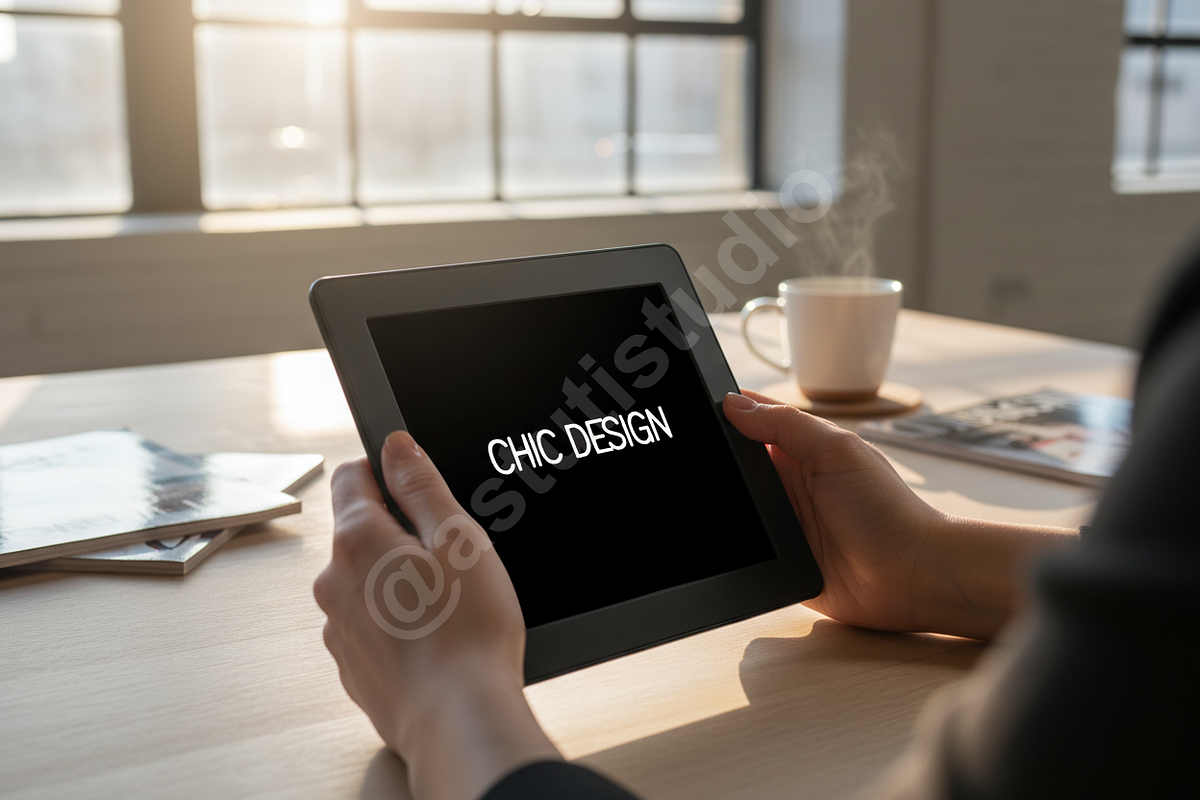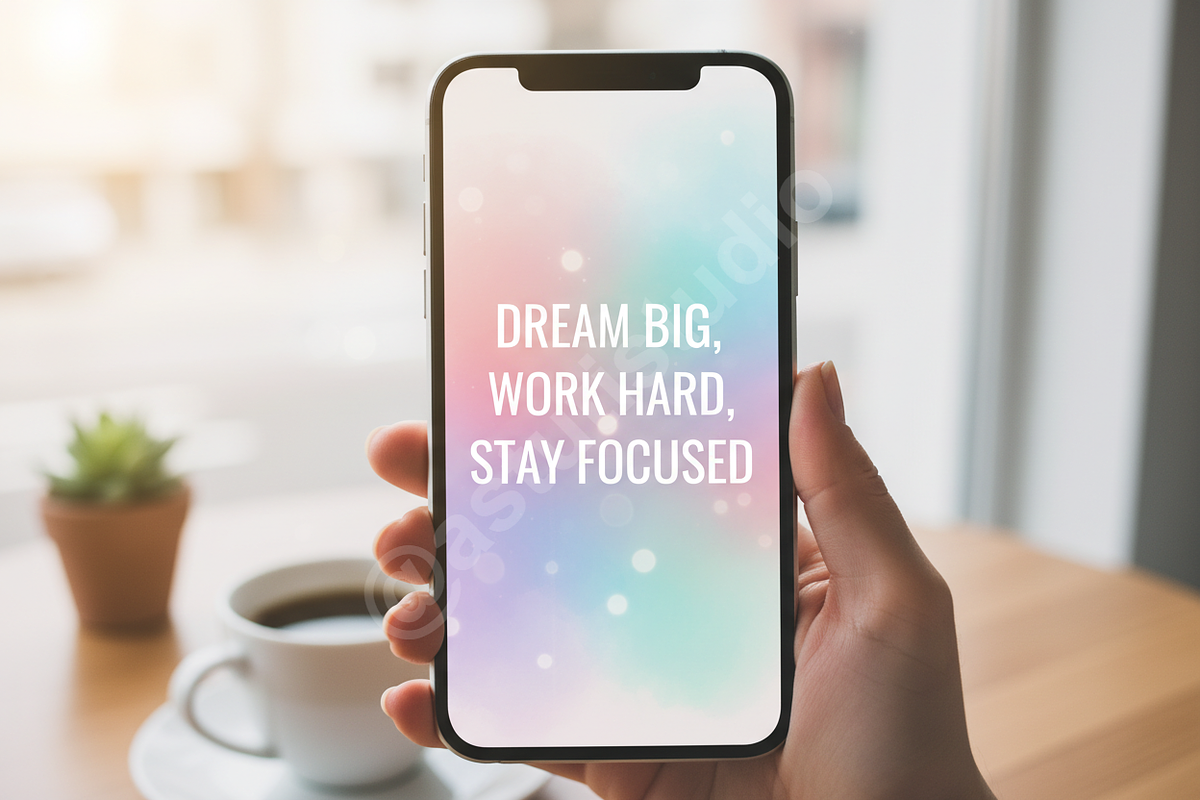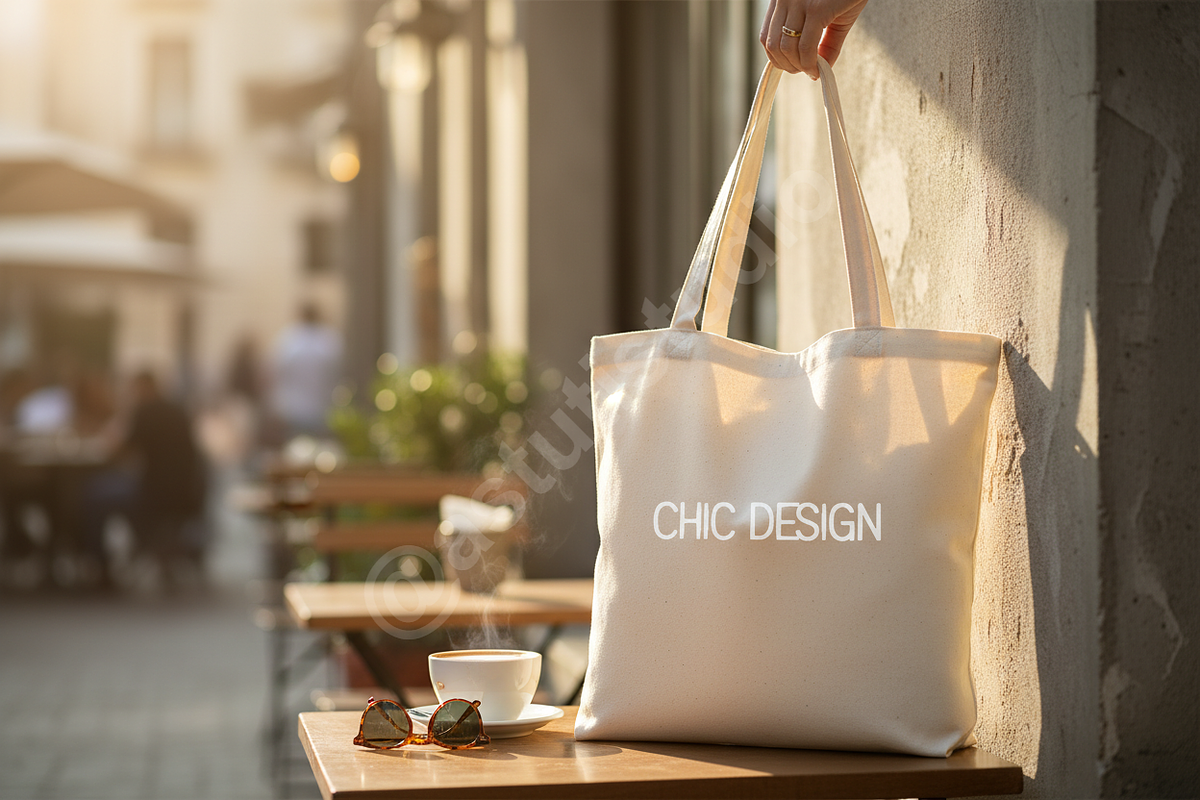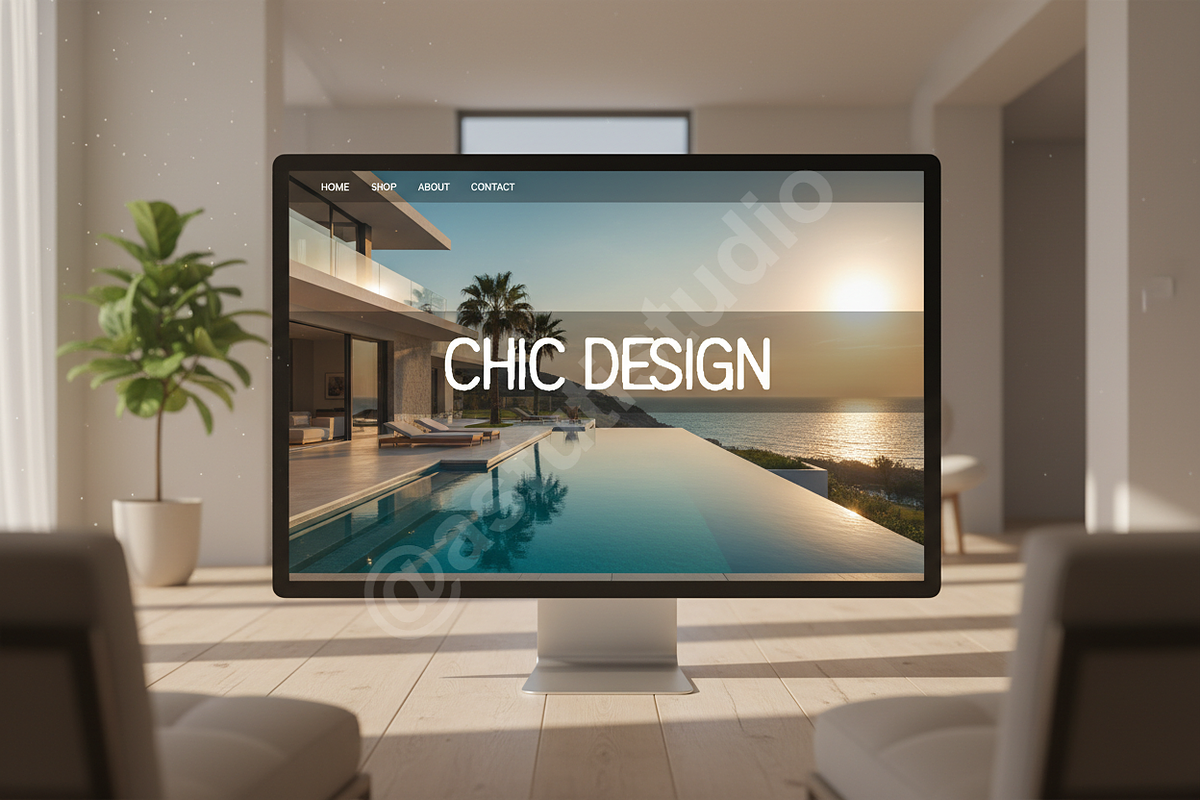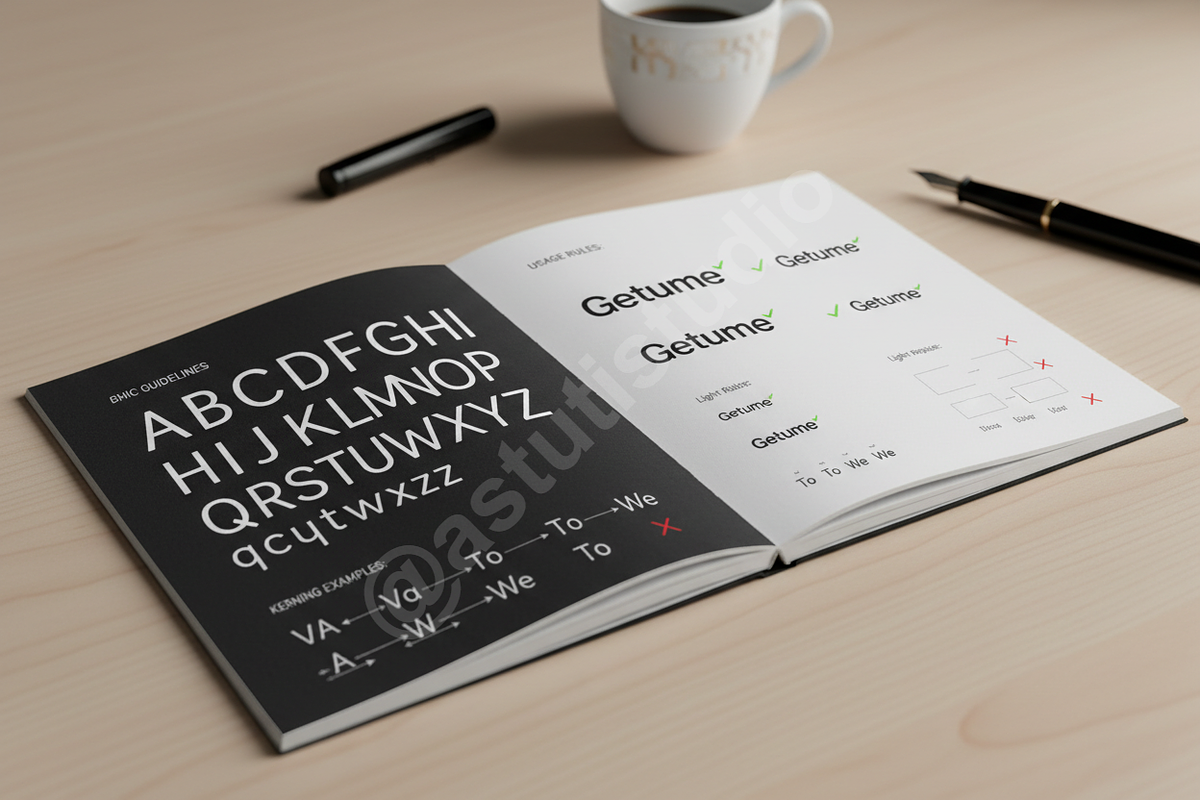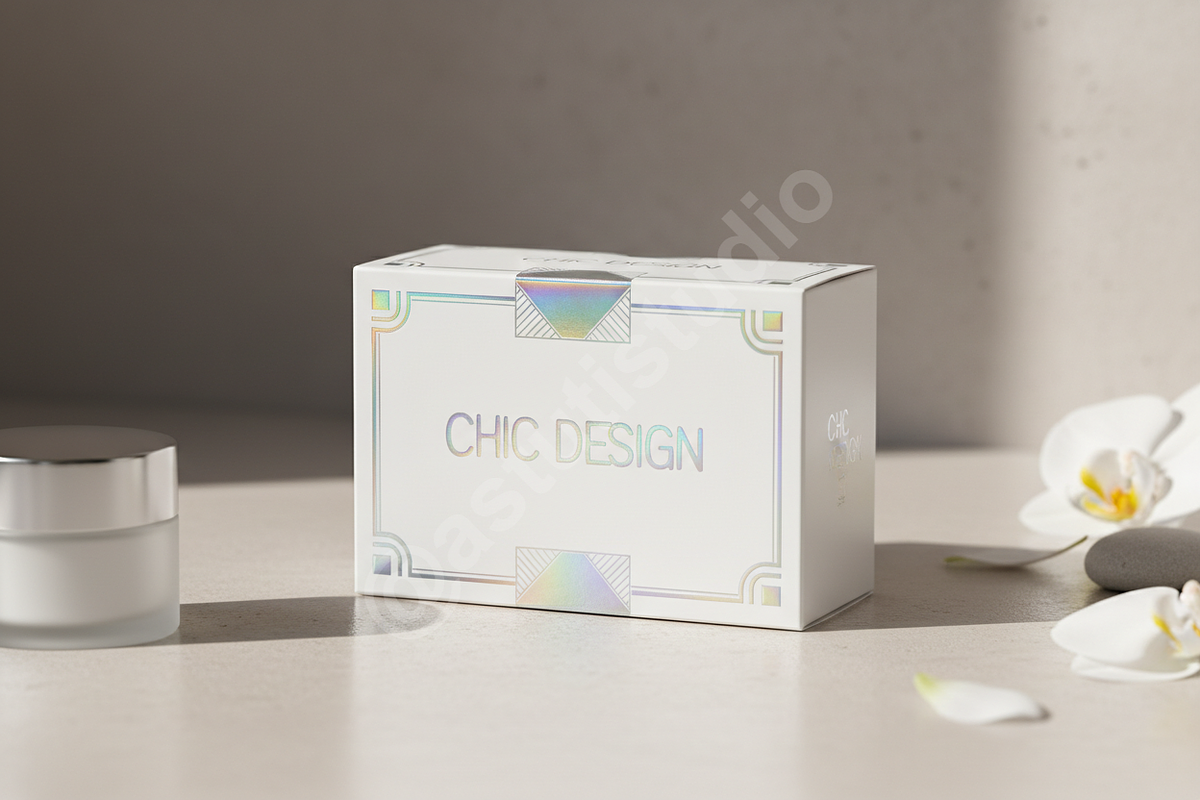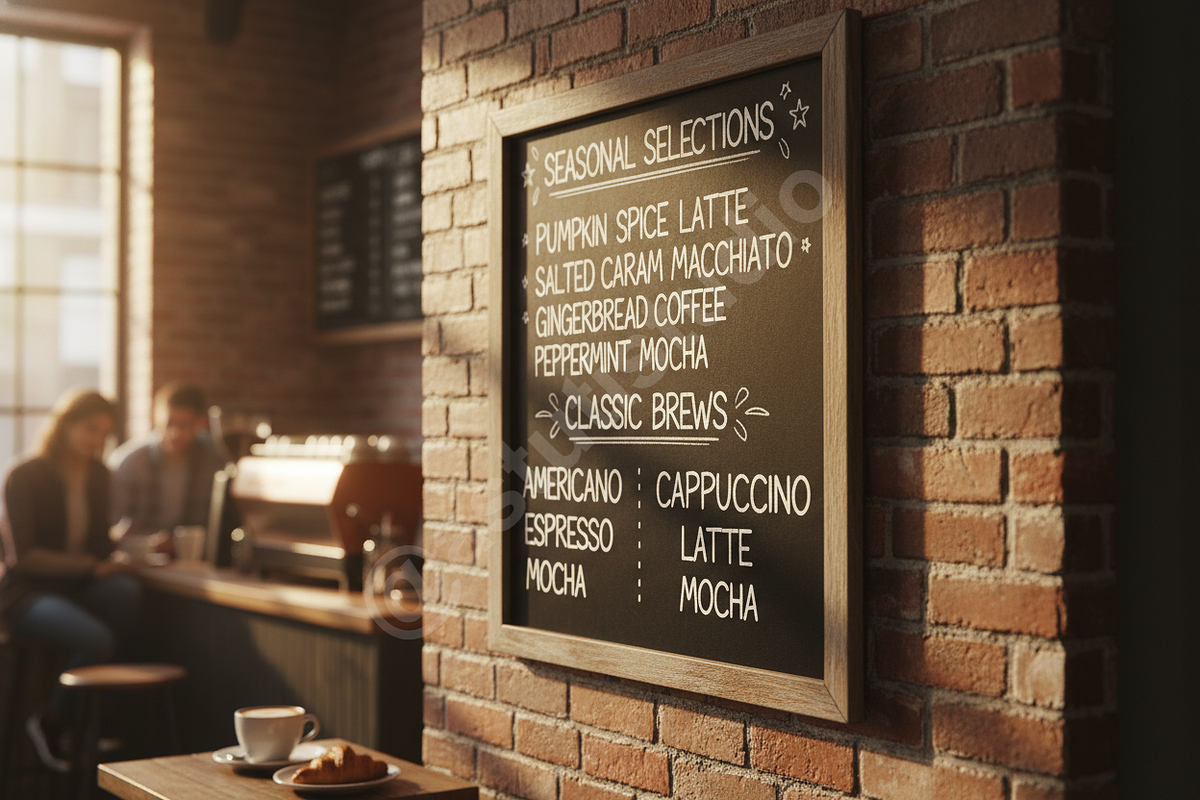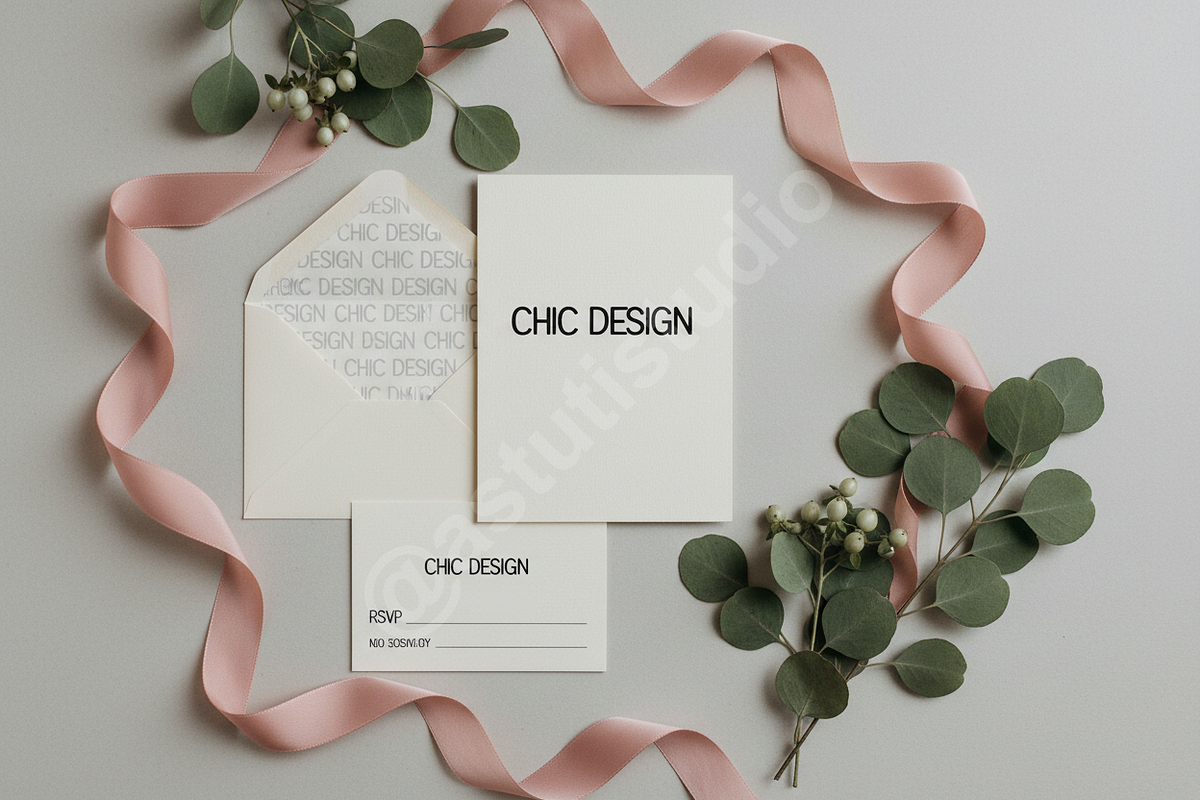
Getume — Elegant Modern Serif for Lu
Getume is a meticulously crafted modern serif typeface designed for sophisticated visual communication. It embodies timeless elegance, making it the definitive choice for projects demanding refinement and high impact. Whether elevating a luxury brand identity, commanding attention in editorial layouts, or providing sleek consistency across digital platforms, Getume delivers unparalleled typographic quality.
• Clean, High-Contrast Letterforms • Optimal Readability across various sizes • Full set of Uppercase & Lowercase characters • Numerals and Extensive Punctuation • OpenType Features including Contextual Ligatures • Multilingual Support (Western European languages) • File Formats: OTF and TTF
• Luxury Product Packaging • High-End Editorial Layouts and Magazines • Social Media Graphics and Templates • Premium Website Headers and Banners • Elegant Logo and Identity Systems